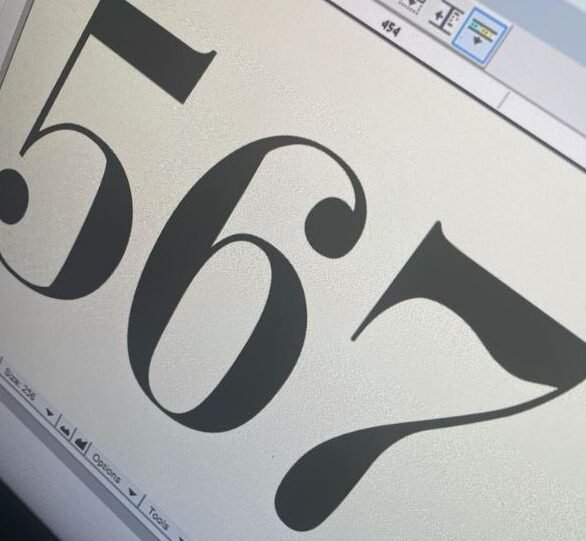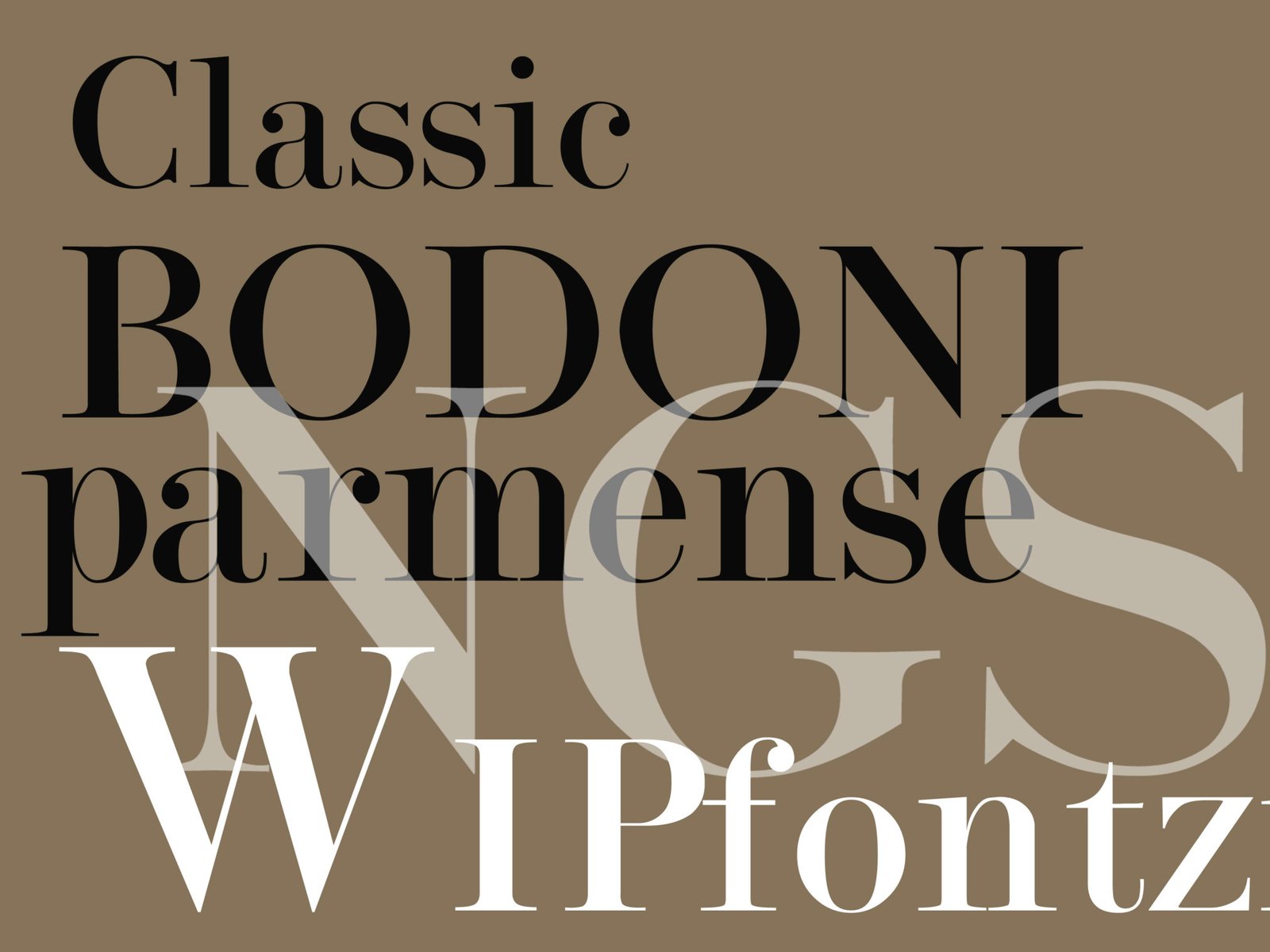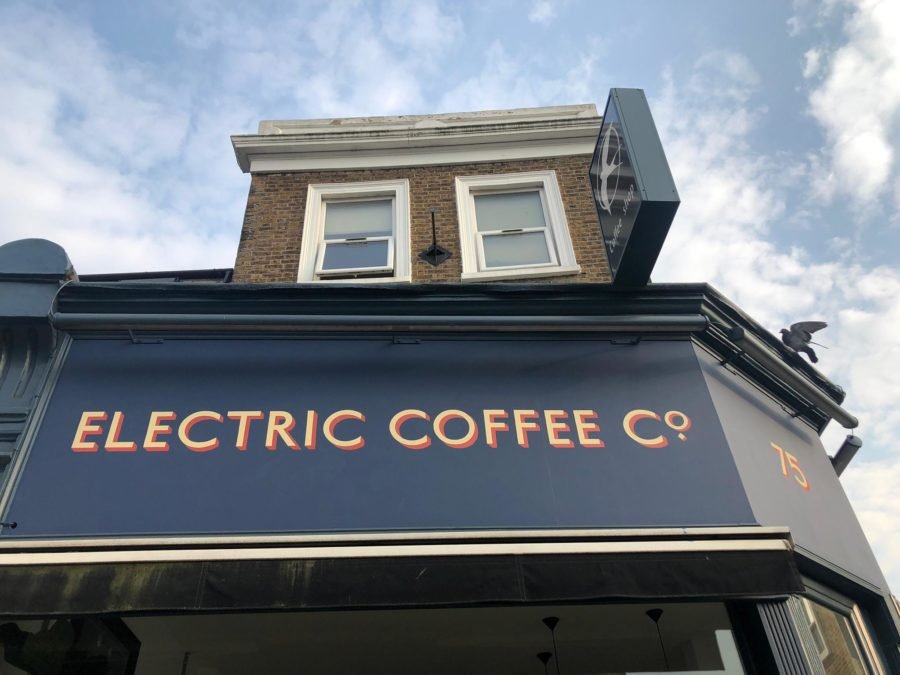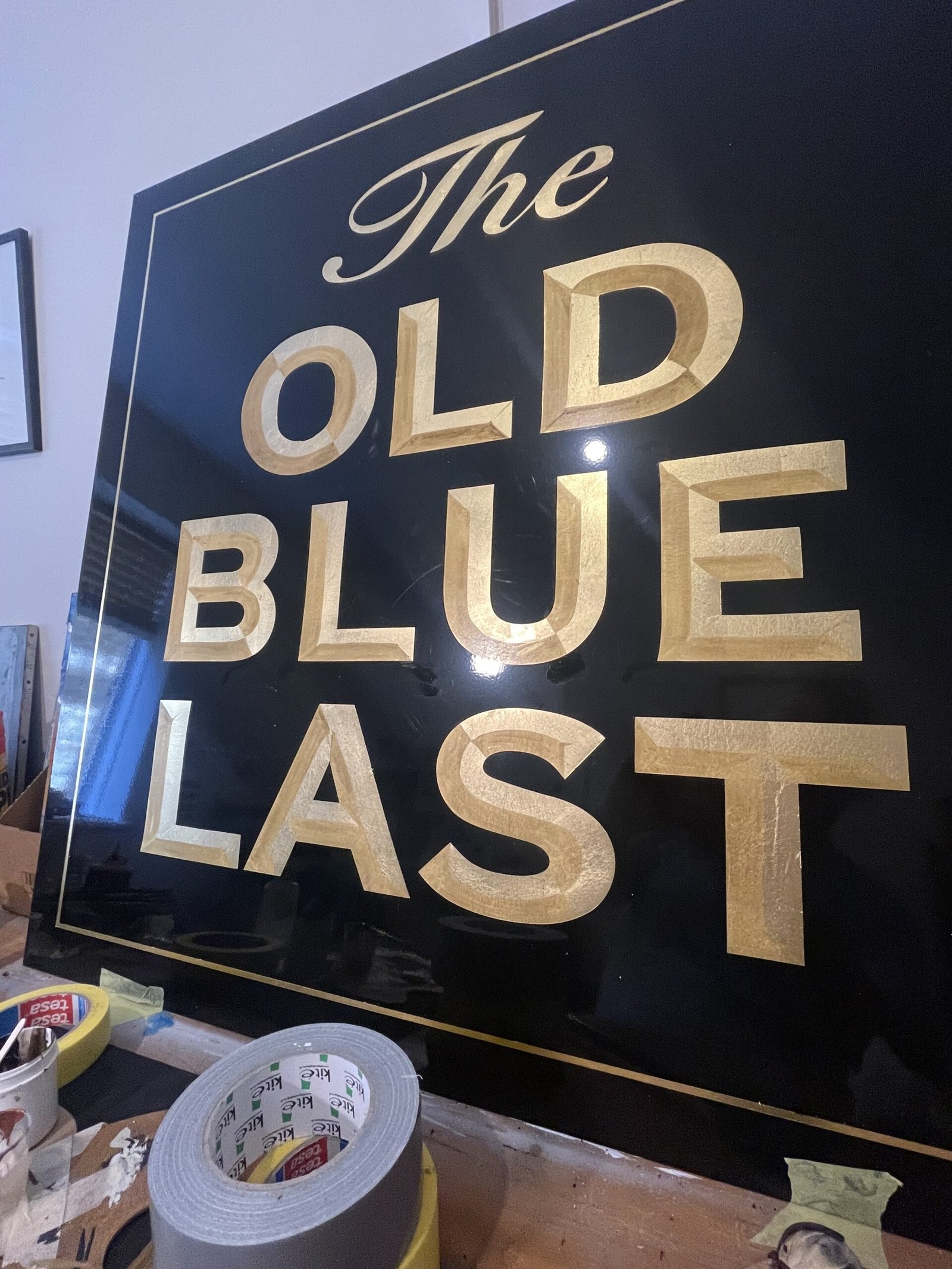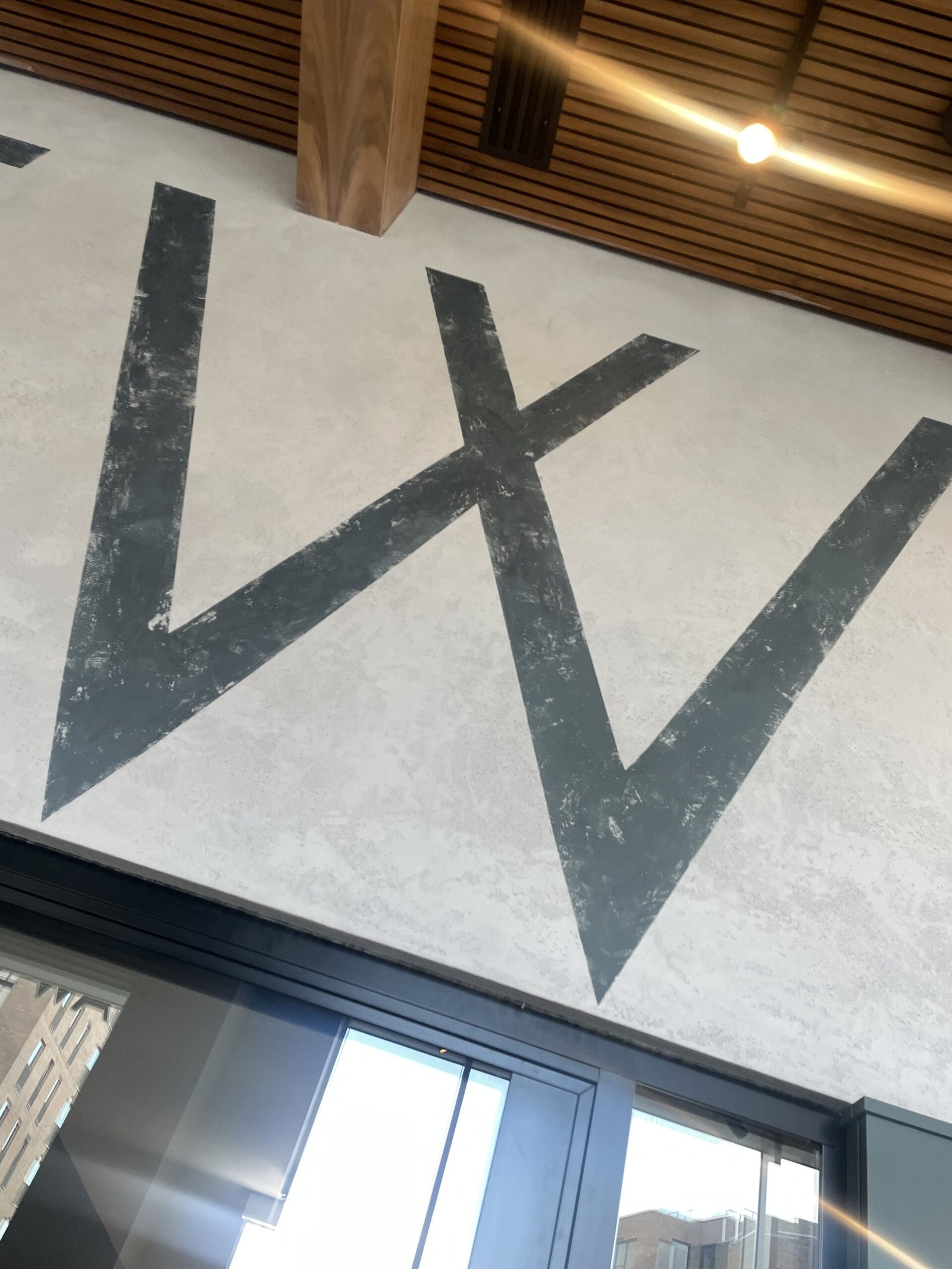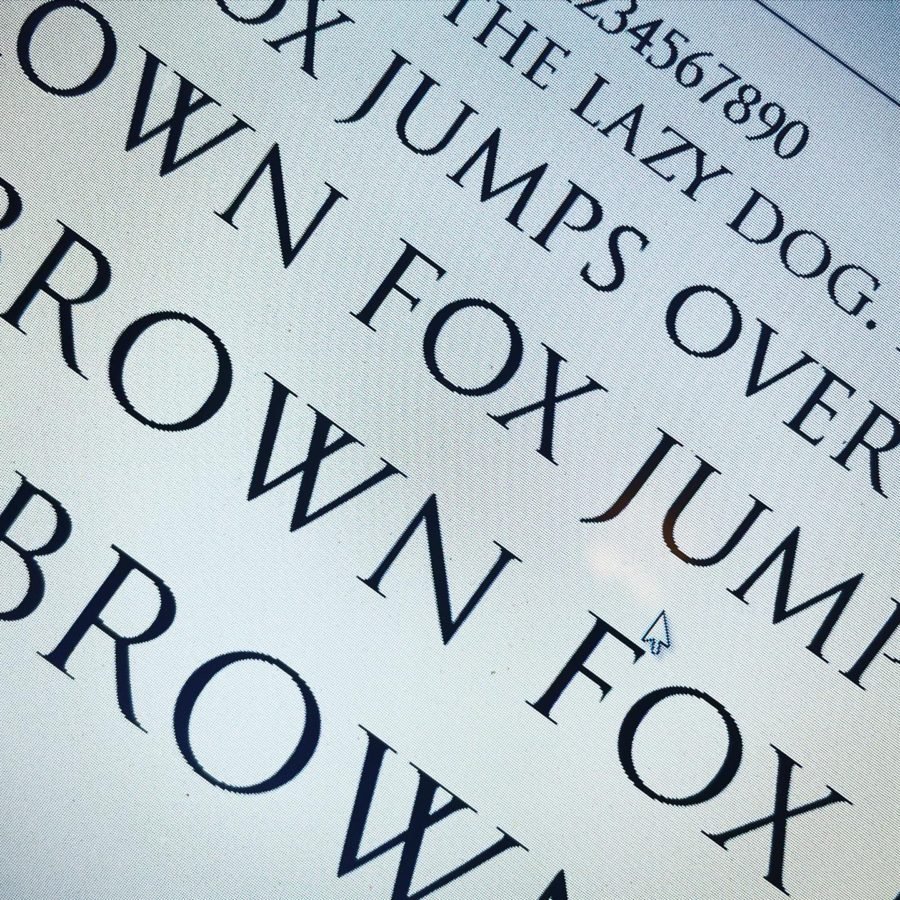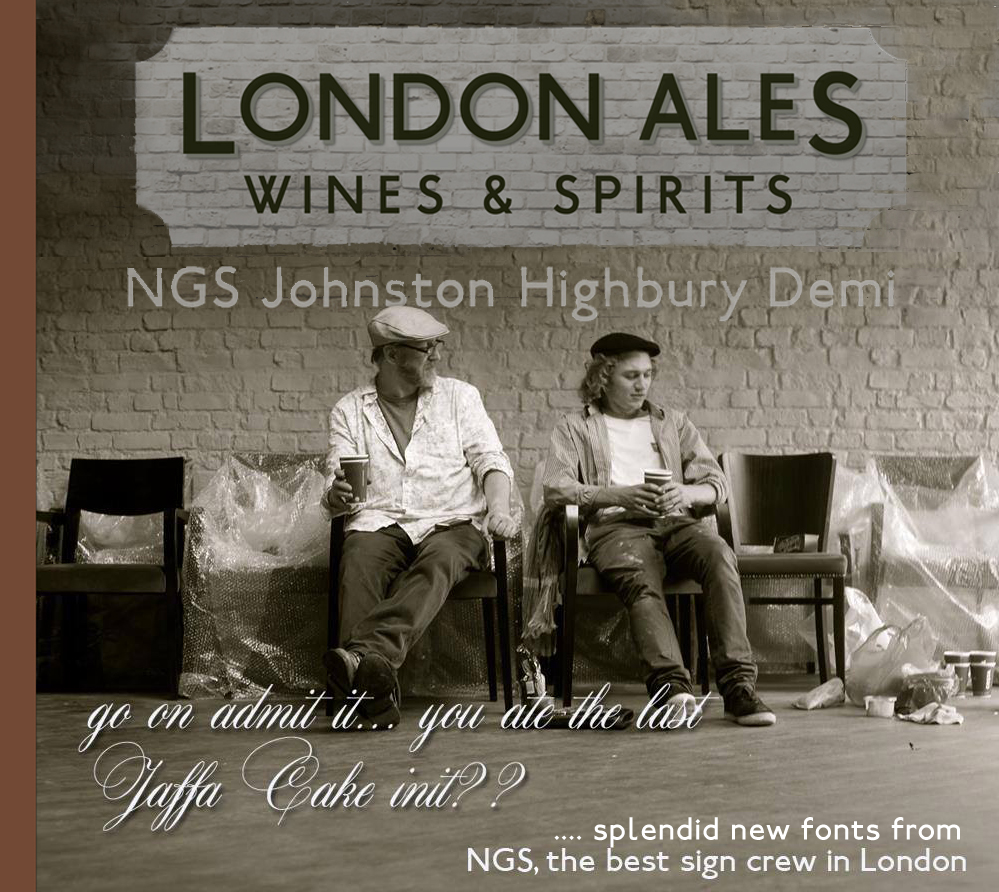
NGS Signwriting is a London-Margate based studio specialising in bespoke lettering, custom typefaces, and hand-crafted typography. Founded by Nick Garrett, now joined by Seraina Baumgartner, the studio blends fine art and print based backgrounds with decades of traditional signwriting expertise to create inspirational, design-led letterforms.
Working by hand and rooted in conservation typographic research, NGS develops original fonts and lettering systems that give brands a unique visual voice. From heritage-inspired gilded Roman lettering to modern, trend-driven minimalist and bright-bold styles, their work combines precision, artistry, and a strong sense of core ‘Soho’ type identity — what they describe as “no ordinary type.”
NGS Fonts: Crafting constantly evolving versions
NGS produces precision typography for major clients by process of origin and modification. Lettering that goes beyond eye candy functionality as it enters its evoltionary journey.
Thus with a constantly evolving archive of custom fonts and a focus on detail at every stage, our letters have become a collection of seriously refined type, often hundreds of miniscule project workarounds over time. These are then published and stored as part of the family set. Easily accessed. Constantly refined.
Indexing
Each font refinement is recorded along it’s editorial journey. Project specific or re-researched versions are indexed from #001 to #108 for example.
High Perfomance Signage
Even major studios experience challenges delivering evolutionary character, clarity, and lasting visual impact across raw signage applications.
Signage is a specialised platform when it comes to brand meets audience. Complex and specifically curated media environments are an easy process for us to envision, modify and issue-publish [in digital media formats, pencil and paint].
Exponential [Design] Growth – EG
EG occurs as our design project processing grows at an ever-increasing rate. Common examples exist such as hereditary reproduction, compound interest in finance, and viral spread. What’s different in the design context is the modifications happen as a direct improvement of readability and new emerging target audience alignment.
Fields: Knowledge-Based Brand Typographic Signage
Knowledge-Based Brand Typographic Signage is our strategic design methodology.
In short, we have the ability to line up your lettering not just to meet and match, but to exceed and inwardly/onwardly inspire your most desirable and brand perfect audience with ‘I love this’ responses.
This specific methodology occured gradually over the past 15 years. We becaome increasingly involved with hybrid projects, for AstraZeneca, Cocoa Cola, Damien Hirst, Elsies of Moab and Berry Bros & Rudd. All demanded new levels of expertise from us. Putting it simply we dived ito a much deeper ‘universe’ of design options, budgets, and creative pool.
One of the first ‘new awarenesses’ was the importance of connecting more closely with our clients. We realised the growing importance [post pandemic] of how people form rapid judgments from visual information [signage] within seconds. Using this mindset of thin-slice target audience principles, our signage became designed around the most influential pertinent visual cues in order to strengthen our client’s lives and livelihoods.
The other governing game-change-maker was working with brilliant people. Clients with utterly brilliant minds. They all seemed to have a certain characteristic: Focus. Determination. Defence mechanisms.
Simultaneously as we increasingly engaged with highly focused collaborators and clients, we saw how their understanding of thin-slice target audience targeting ensured that typography, language, hierarchy, materials, placement, and messaging are would need new levels of tailoring: tailored to the elevated levels of specific needs: inner intuitive expectations, and behaviours of their targeted ‘new viewer’ audience.
Artisan v Partisan – 2021
In a nutshell if we needed to target a more highly specialised audience then we needed to survey our own processes. We greatly enhanced the intesity [restoration matrix] of the letter forms themselves by using digital media tools such as Adobe Suite.
Our joint first desision was to completely review and scrutinise all incoming design briefs and commercial fonts. This then revealed a woeful inadequacy across pretty much the whole Font churning industry and most graphic decks.
Type matrix and mould store
Metal store with boy hauling pigs upon a trolley
Founting Shop, with women breaking up the type and a man dressing the type
Machine shop on the top floor with a fly-press in the bottom left
Caretaker’s cottage with caretaker’s wife and the factory cat